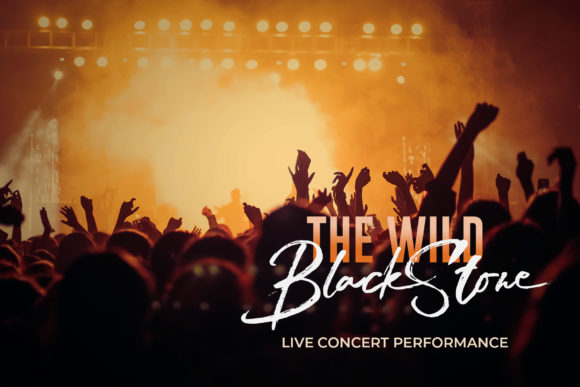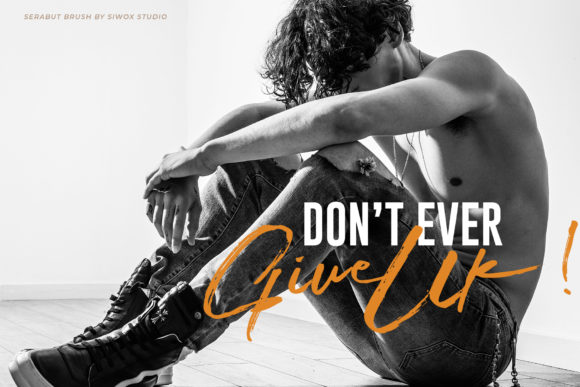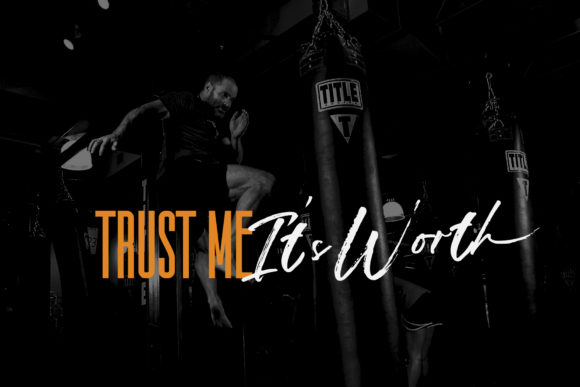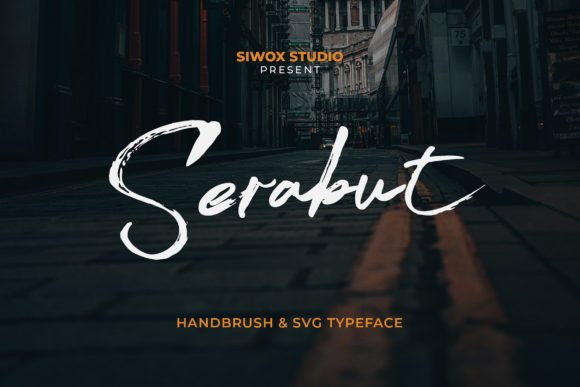
Introduction to Serabut Font
Serabut is a fresh and natural brushed handwritten font.
No matter the topic, this font will be an incredibly asset to your fonts’ library, as it has the potential to elevate any creation .
Serabut Font offers exceptional quality and versatility, making it a valuable addition to your design toolkit. Whether you’re creating for personal projects or commercial use, Serabut Font delivers professional results.